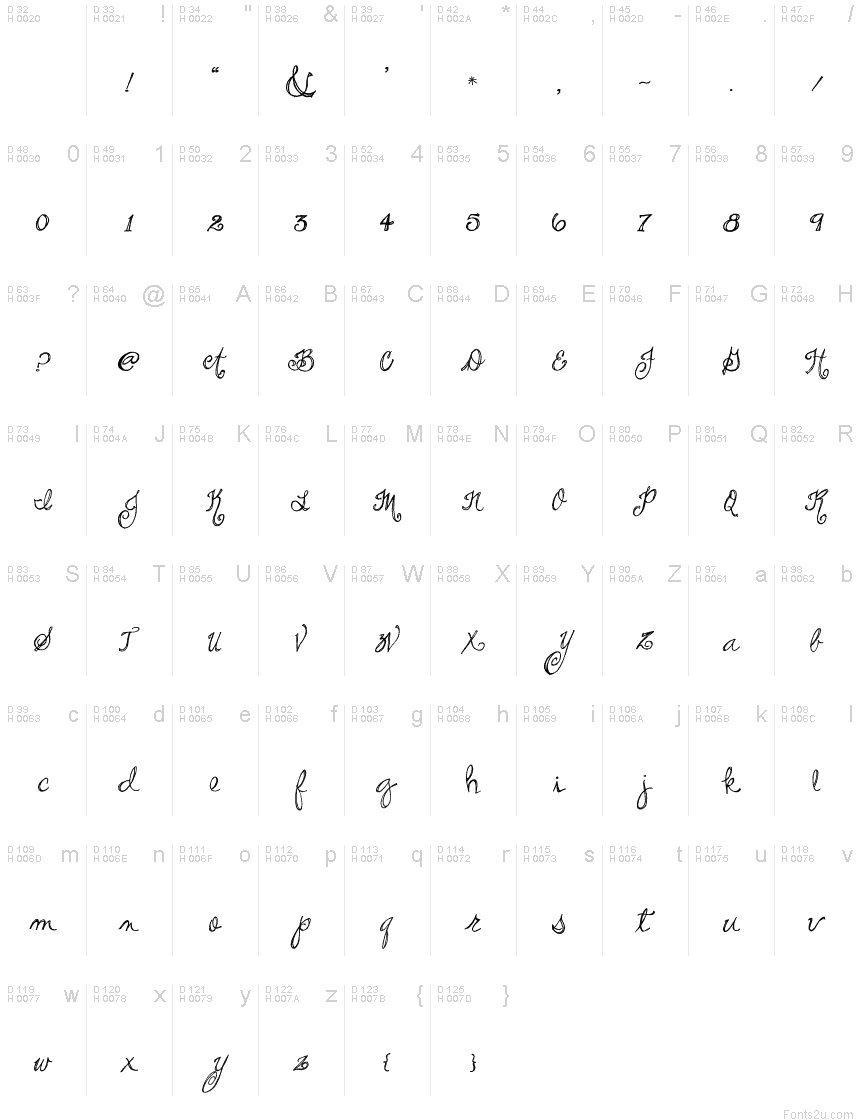
Pea Stacy's Doodle Script
Pea Stacy's Doodle Script by Fonts For Peas is a free handwritten calligraphy font with the sweep of an oversized signature. Its long loops, sharp turns, and crossing strokes make the letters look rapidly drawn. The uneven line and exaggerated joins keep the writing personal and a little unruly.
Romance and personal correspondence suit invitations and keepsake stationery. Fashion branding and beauty packaging can also use its fluid movement to suggest a hand-signed name. Across these uses, looping strokes make the lettering part decoration and part message.